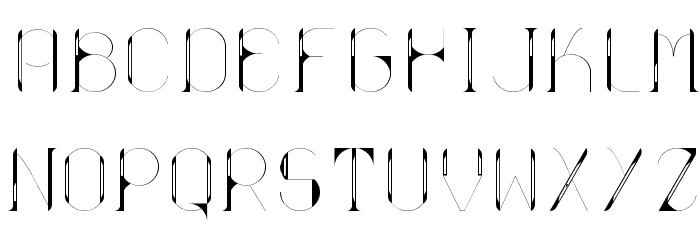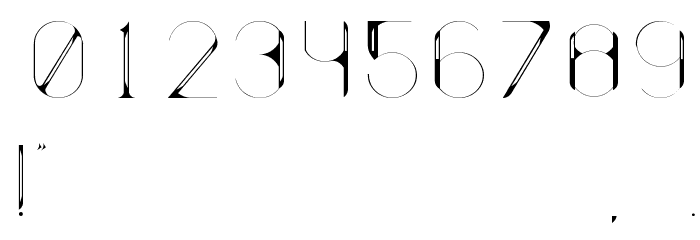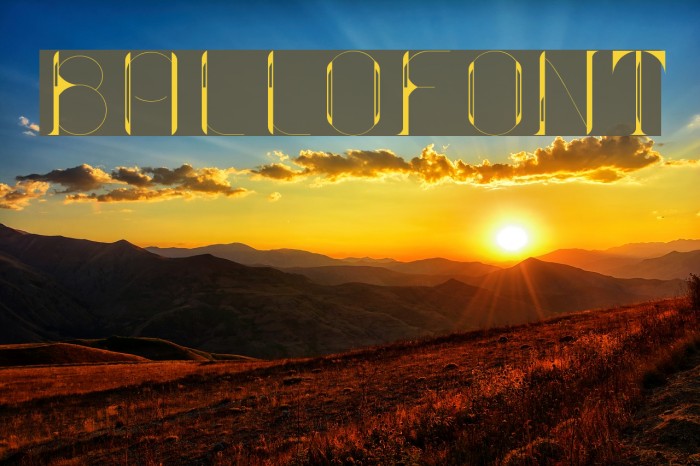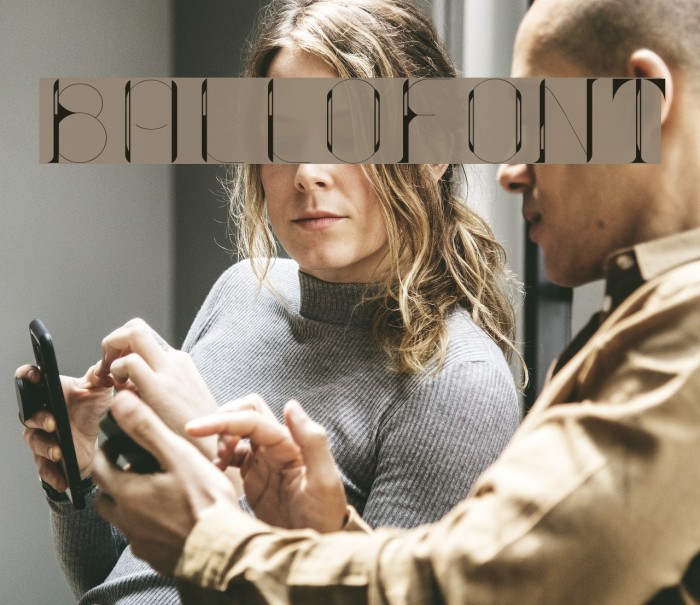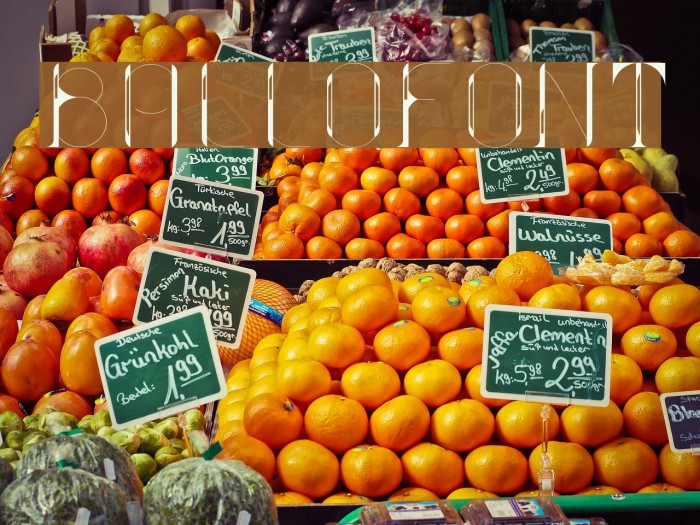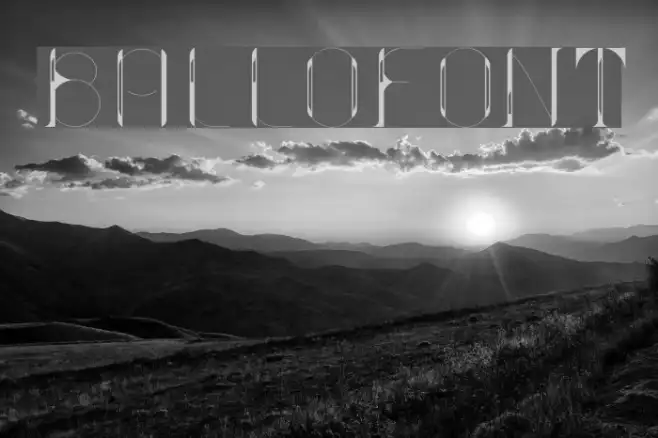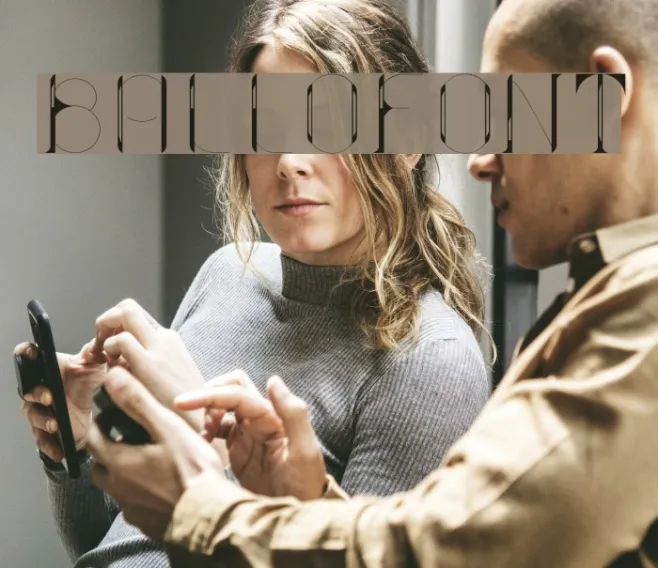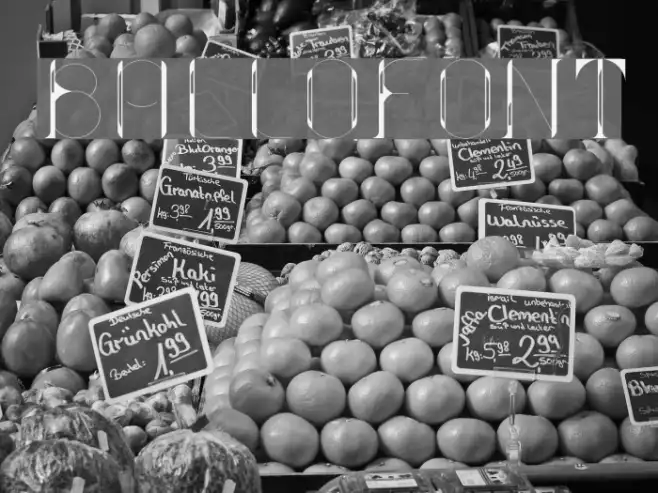
Ballo Font
This font features a unique and artistic design with a modern twist. The characters are crafted with a combination of thin and thick strokes, creating a high contrast that adds a dynamic and eye-catching effect. The uppercase and lowercase letters maintain a consistent style, with sharp angles and geometric shapes that give the font a futuristic and avant-garde appearance. The numbers and special characters follow the same design principles, ensuring uniformity across all glyphs. This font's distinct style makes it suitable for creative and bold design projects.
A modern, high-contrast font with geometric and artistic elements.